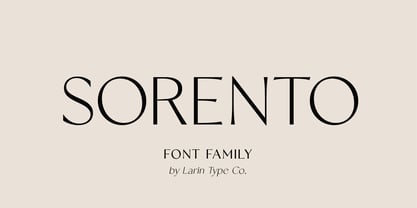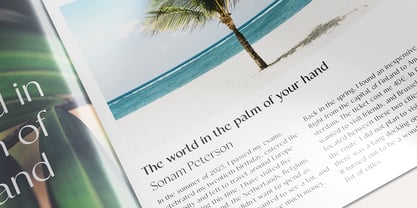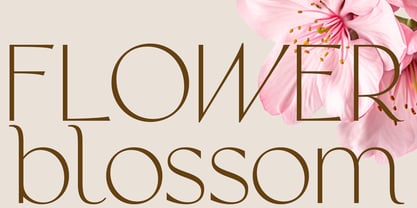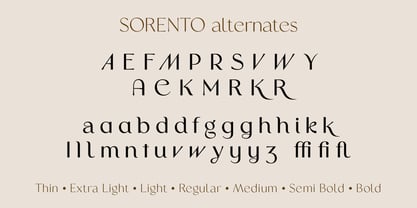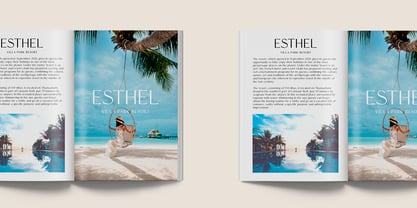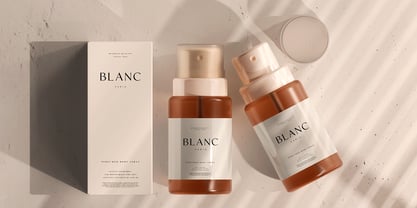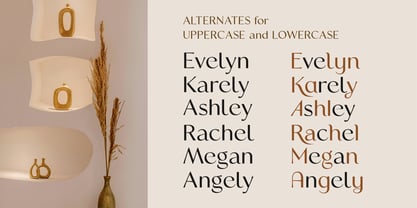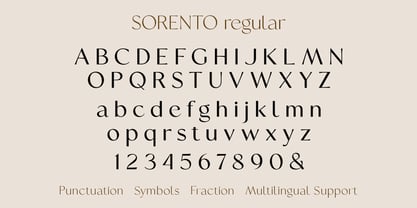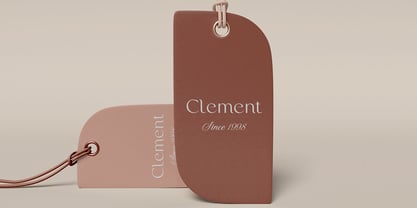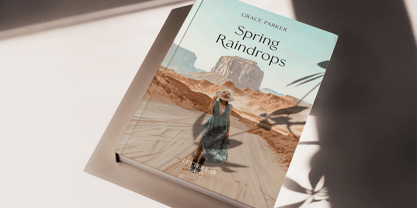
Sorento
by Larin Type Co
The Sorento Font Family was designed by Pavel Larin and published by Larin Type Co. Sorento contains 14 styles and family package options. More about this family
SORENTO is an elegant, modern and contrast sans-serif font family. It includes upright and Italic style, each of them has seven weights from thin to bold. This is a multi-purpose font that is perfect for any project, it is contrasted, modern and easy to read. With it, you can create logos, use in advertising, packaging, book covers and magazines, headings, descriptions and much more.
This font family includes stylistic alternates with a teardrop-shaped tail for uppercase and lowercase, with them, you can change the style of your project and add personality to it and make it more stylized.